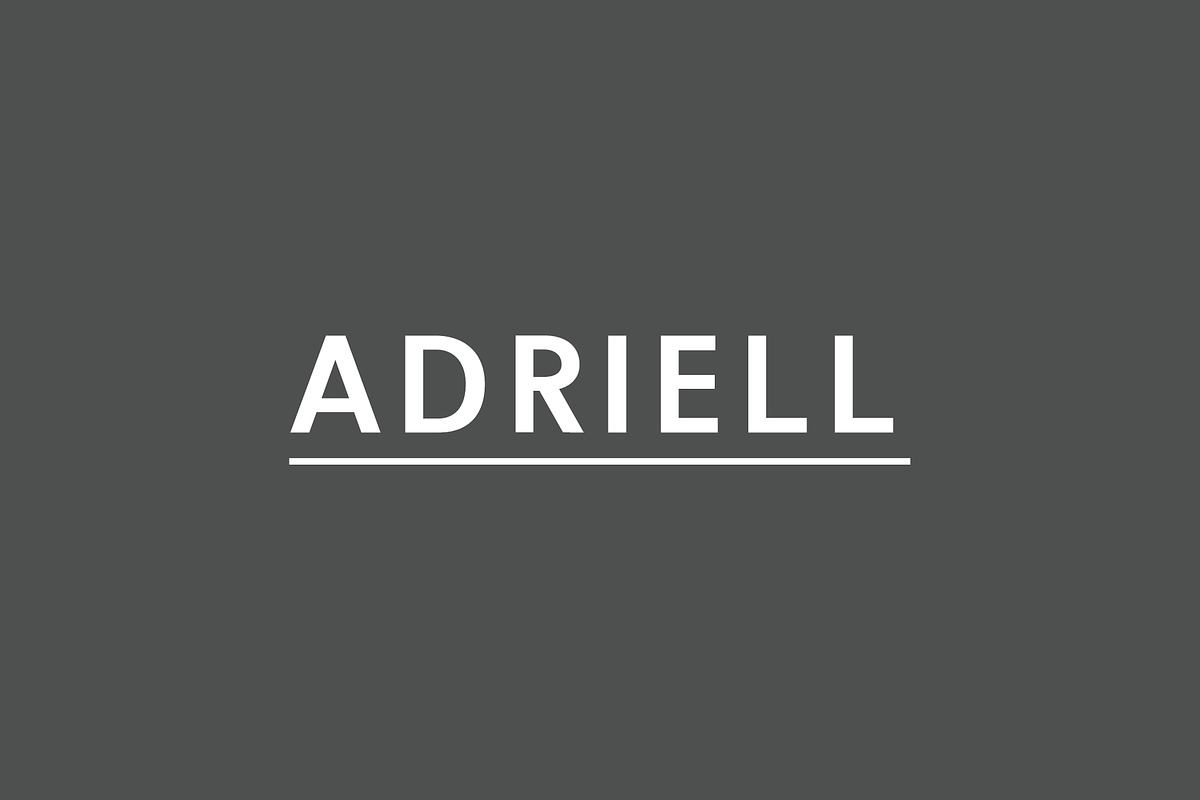
Adriell Sans Serif Fonts Family Free Download is a modern, versatile font family designed with clean lines and a contemporary feel. With a range of weights and styles, this font family is ideal for various design applications, including branding, editorial layouts, web design, corporate materials, and packaging. Its simple yet powerful structure ensures that your text remains readable and visually appealing across any project.
Using the Adriell Sans Serif Fonts Family Free Download adds a sleek, professional touch to your work. Whether you're creating a bold headline, minimalistic web content, or a stylish logo, Adriell offers the flexibility to adapt to any design style while maintaining a modern, polished look.